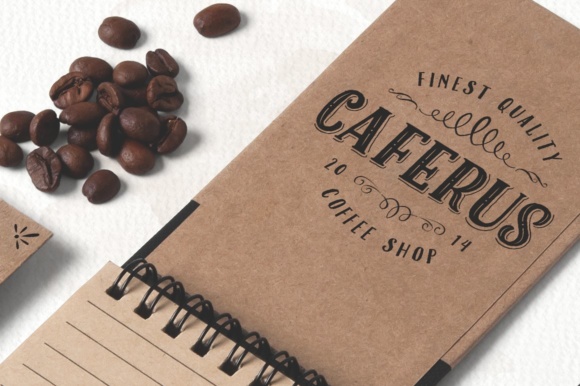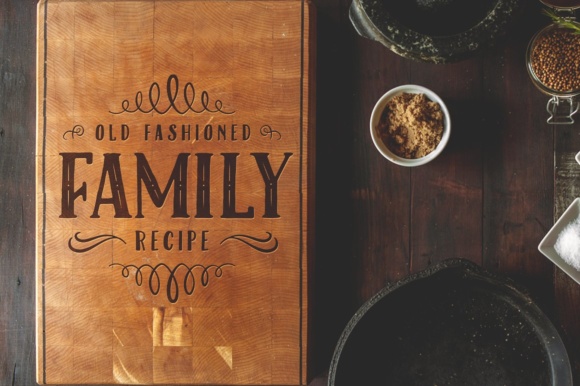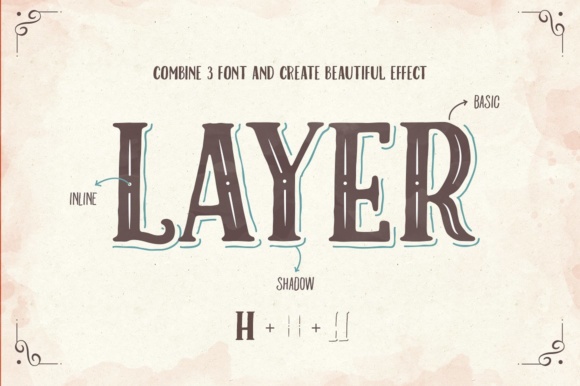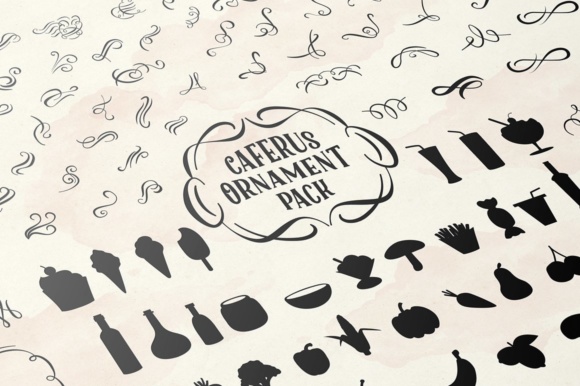
Warm Up Your Designs with Caferus Font
There’s something magical about strolling into a cozy cafe on a chilly morning, surrounded by the warm aroma of freshly brewed coffee and the gentle hum of conversation. It’s a moment that sparks creativity, a time when the world feels a little more at ease. As designers, we’ve all had those moments when we want to capture that same warmth and friendliness in our work.
That’s where Caferus Font comes in – a gorgeous layered font that’s inspired by the classic lettering found on cafe signage. With its retro charm and inviting feel, Caferus Font is the perfect tool to add a touch of personality to your designs. Whether you’re working on a branding project, creating a menu for a new cafe, or simply looking to add some visual interest to your social media graphics, Caferus Font is a valuable addition to your design arsenal.
Caferus Font Key Features
- Unique Characteristics: Caferus Font features a unique blend of modern and vintage elements, making it suitable for a wide range of design projects, from minimalist to ornate layouts.
- Font Metrics: The font’s metrics are carefully crafted for optimal readability, with features like x-height, cap height, and baseline spacing carefully calibrated to ensure clear and legible text.
Designer Review: Caferus Font
Overall, I’d say Caferus Font has some great features, but also some areas that could be improved.
- Unique design: Caferus Font has a distinct and quirky feel to it, which can be a great fit for projects that need a bit of personality.
- Clear legibility: The font is easy to read, even at smaller sizes, making it suitable for body text or captions.
- Good font pairing potential: Caferus Font can be paired with other fonts to create a visually interesting and balanced design.
- Limited font weights: Caferus Font only comes in a few font weights, which can limit its versatility in certain design projects.
- Not ideal for large blocks of text: Due to its quirky nature, Caferus Font may not be the best choice for large blocks of text or long paragraphs.
- Not suitable for formal designs: Caferus Font’s playful feel may not be suitable for formal or professional designs, such as business reports or academic papers.
Overall, I think Caferus Font is a great choice for projects that need a bit of personality and flair. However, it may not be the best fit for every design project, and its limitations should be considered before making a final decision.
Getting the Most Out of Caferus Font
To get the most out of Caferus Font, consider the following tips:
– Experiment with different font sizes and styles to achieve the desired visual effect.
– Use Caferus Font in combination with other design elements to create a cohesive look.
– Consider using Caferus Font for headings and titles to add visual interest.
Caferus Font is commonly used for:
– Headings and titles
– Body text in creative projects